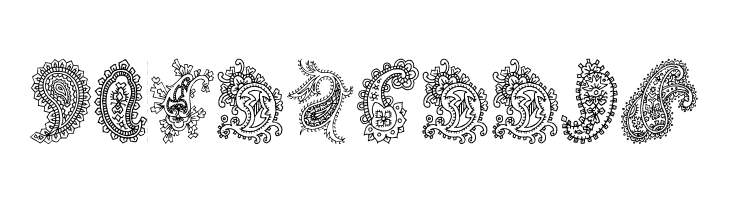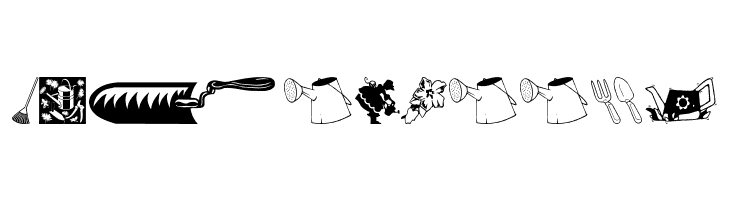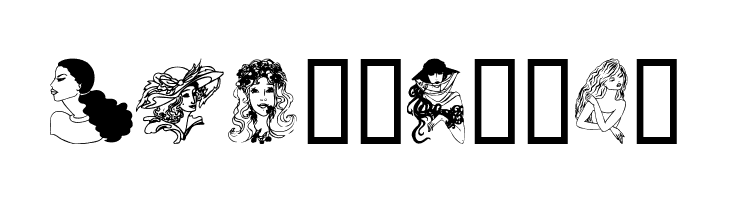
• Frames and Backgrounds
A diverse set of decorative rectangular frames and backgrounds.
• Paisley
Ornate paisley-patterned decorative font.
• Ornamental Decoration
Highly decorative ornamental motifs for embellishment.
• Hats II
A modern, geometric font with characters enclosed in bold frames, ideal for tech-themed designs.
• Garden Time
Bold, decorative font with high contrast.
• ScrappersElements
A bold, geometric font with characters enclosed in rectangular frames, offering a modern and structured look.
• Face of a Lady
Artistic font with illustrated women's faces as glyphs.
• Birdies
Ornamental font with each glyph as a distinct bird illustration.
• Fruityand veggie
A playful, blocky font with a digital, pixel-art style.
• Ornamental Corners
Elaborate ornamental corner designs with a vintage decorative flair.